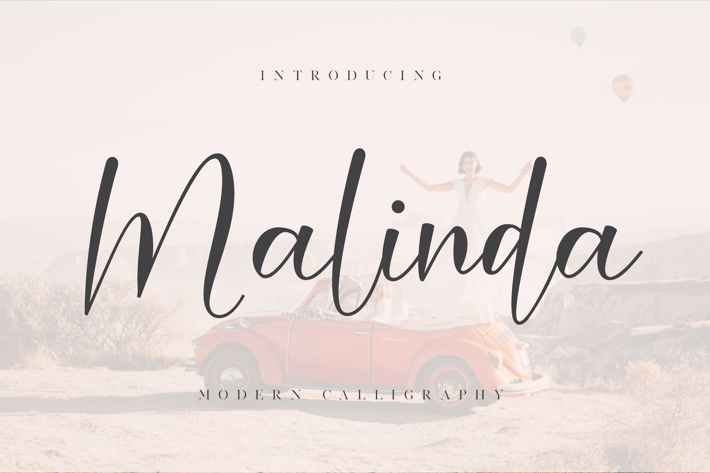
Malinda - Wedding Font
Malinda is an incredibly beautiful script font. It has a classy, elegant, and modern look which can be used for logos, branding, invitations, stationery, wedding designs, social media posts, and much more!
Ligatures, Swash, Alternates